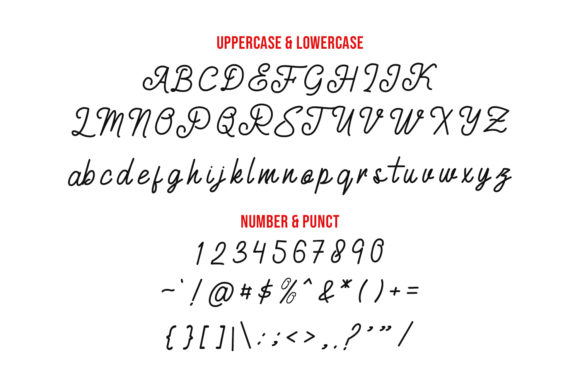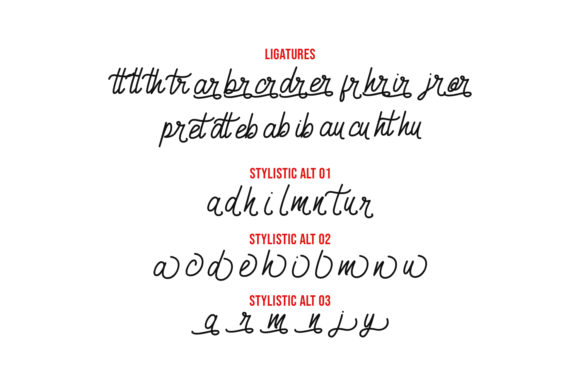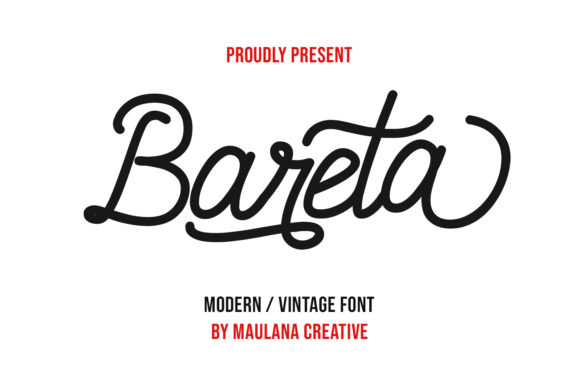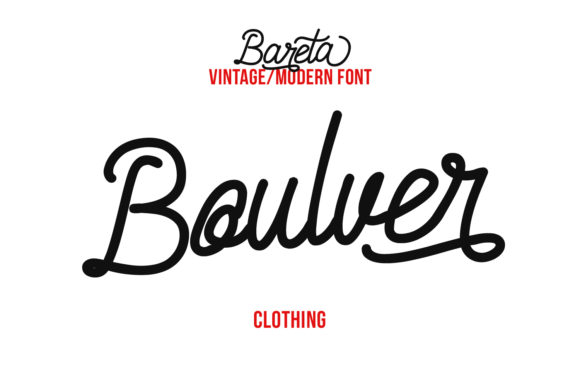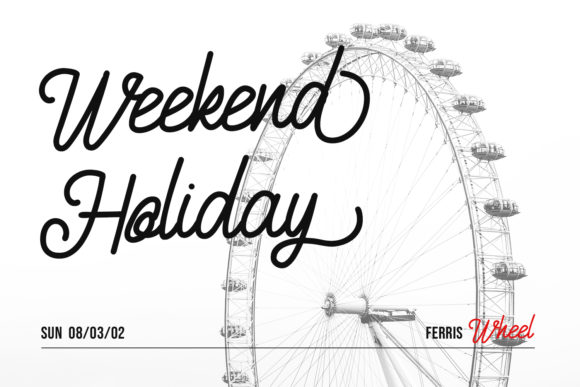
Bareta Font
About Bareta Font
Bareta is a modern handwritten font. This font is perfectly suited to signature, stationery, logo, typography quotes, magazine or book cover, website header, clothing, branding, packaging design and more.